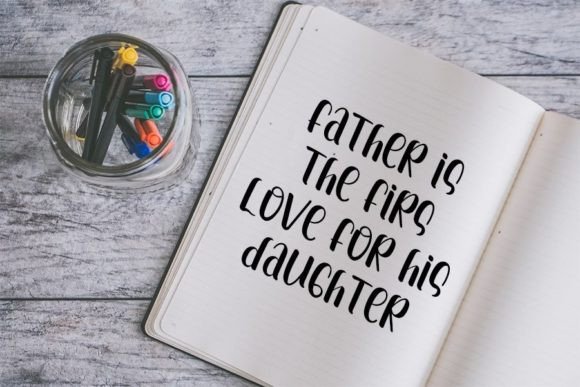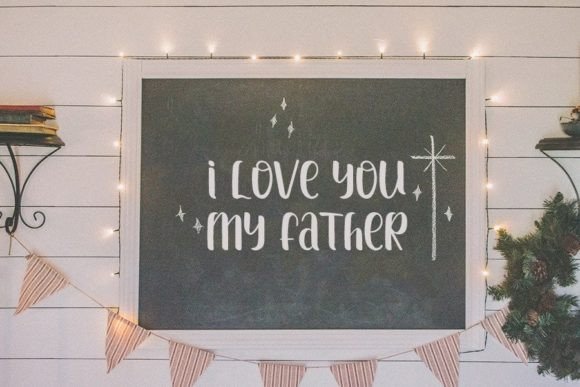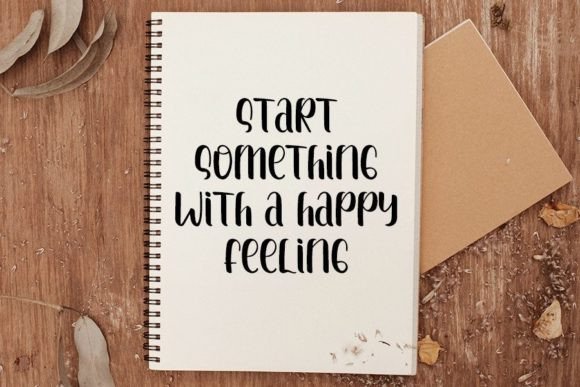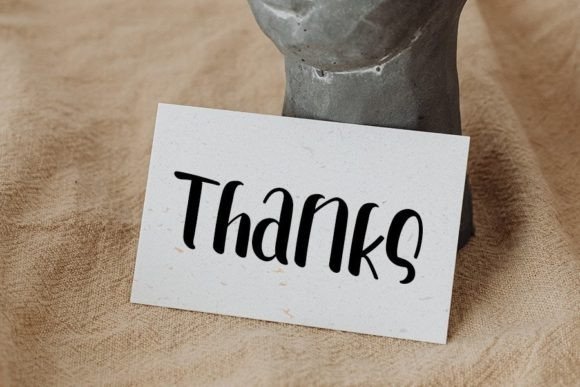
The Elusive Search for the Perfect Font: My Encounter with Father Font
I’ll never forget the frustration of working on a project, hours pouring into the design, and then getting stuck on one thing: the font. It was for a client’s wedding invitation, and I wanted something that exuded elegance and sophistication. I scrolled through font after font, but nothing seemed quite right. That was until I stumbled upon Father Font. 💕
Described as a neat and beautiful handwritten font with an elegant touch, Father Font was love at first sight. Its distinct and timeless style won me over, and I knew I had to share it with fellow designers, crafters, and creative hobbyists. In this article, I’ll dive into what makes Father Font special, its strengths and limitations, and provide a practical guide on how to use it across various platforms.
An Honest Review of Father Font
What I Love About Father Font ✨
- ✅ Elegant and sophisticated feel, perfect for projects that require a touch of luxury
- ✅ Unique and distinct style that sets it apart from other fonts
- ✅ Versatile and can be used for a wide range of projects, from wedding invitations to branding and packaging
- ⚠️ Limited availability of stylistic alternates, which might limit its use in certain design contexts
- ⚠️ May not be the best fit for projects that require a bold or edgy look
The Story Behind Father Font
While the origins of Father Font are shrouded in mystery, it’s said that the font was created by a talented type designer who wanted to craft a font that exuded warmth and elegance. Inspired by classic calligraphy and handwritten scripts, Father Font was born. Today, it’s a beloved font among designers and crafters, cherished for its unique and timeless style.
| Font Name | Father Font |
| Author | Kongsi.Co |
Q: What type of projects is Father Font best suited for?
A: Father Font is versatile and can be used for a wide range of projects, including wedding invitations, branding, packaging, and digital design.